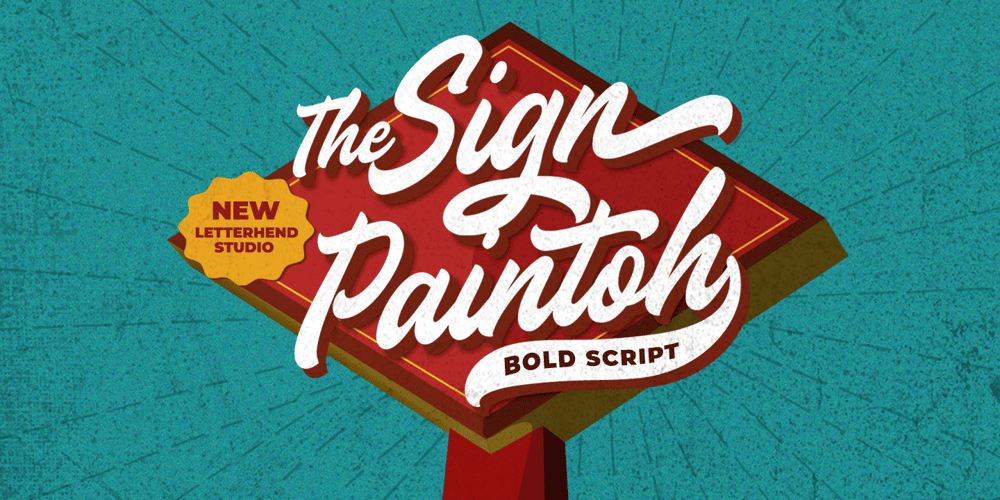
Sign Paintoh Font Family was designed by Hendry Juanda and published by Letterhend. Sign Paintoh contains 1 styles and family package options. The Sign Paintoh is a retro bold script which will bring you back to 60s feel. The swashes makes this font looks great for retro lettering which you can create in a sec! This font perfectly made to be applied especially in logo, and the other various formal forms such as invitations, labels, logos, magazines, books, greeting / wedding cards, packaging, fashion, make up, stationery, novels, labels or any type of advertising purpose.Features : uppercase & lowercase numbers and punctuation multilingual ligatures alternates swashes PUA encoded We highly recommend using a program that supports OpenType features and Glyphs panels like many of Adobe apps and Corel Draw, so you can see and access all Glyph variations. For accessing opentype feature, kindly check this link letterhend.com/tutorials/using-opentype-feature-in-any-software/